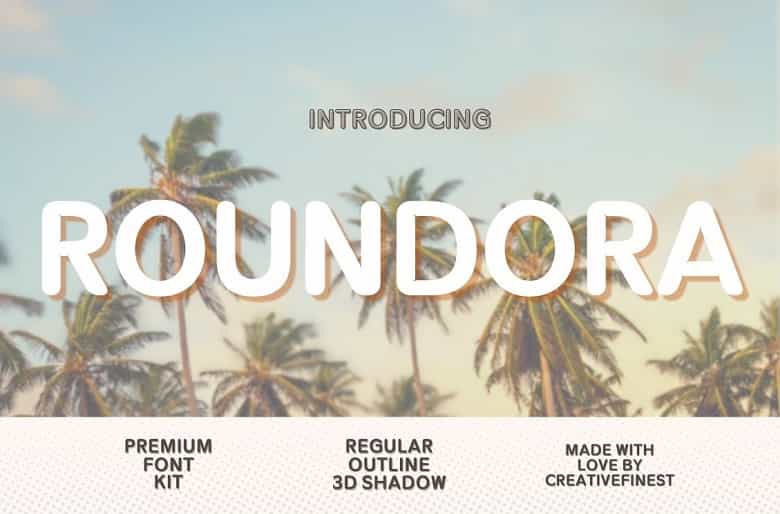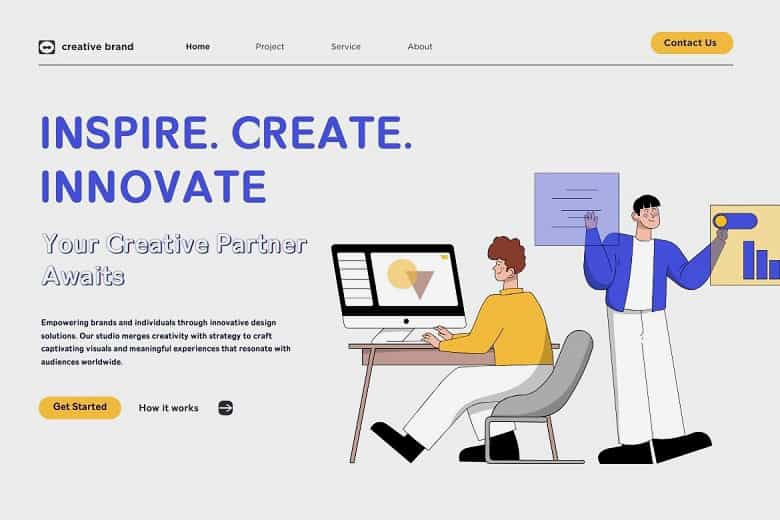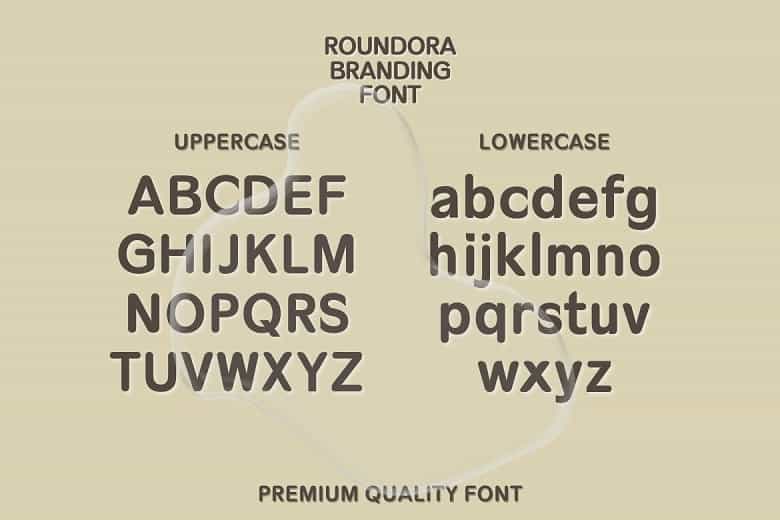
Roundora is a contemporary sans-serif font that is based on a few geometric shapes to support minimalism even today. Due to its round shape and minimalistic design, Roundora modern font will be a perfect accent to your projects. Roundora modern font is suitable for anyone who wishes to create a contemporary and professional look for their projects.